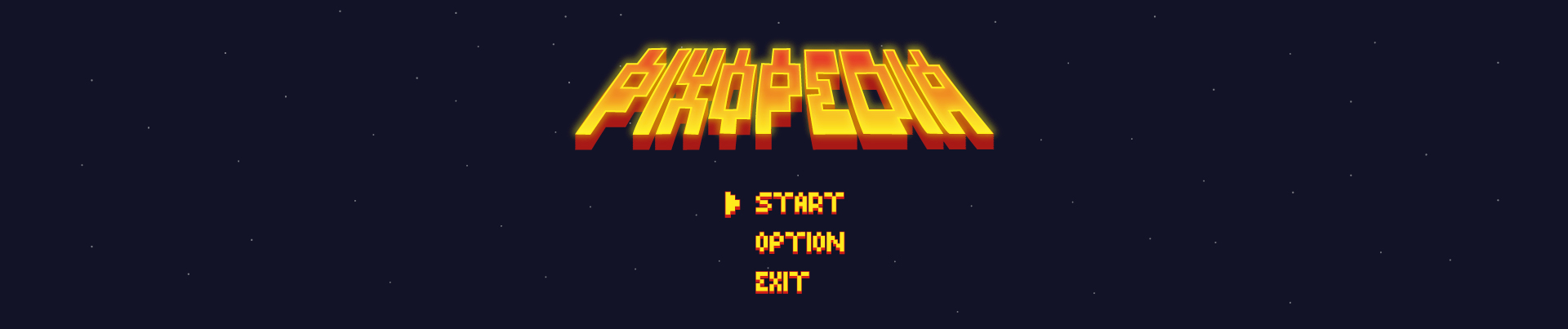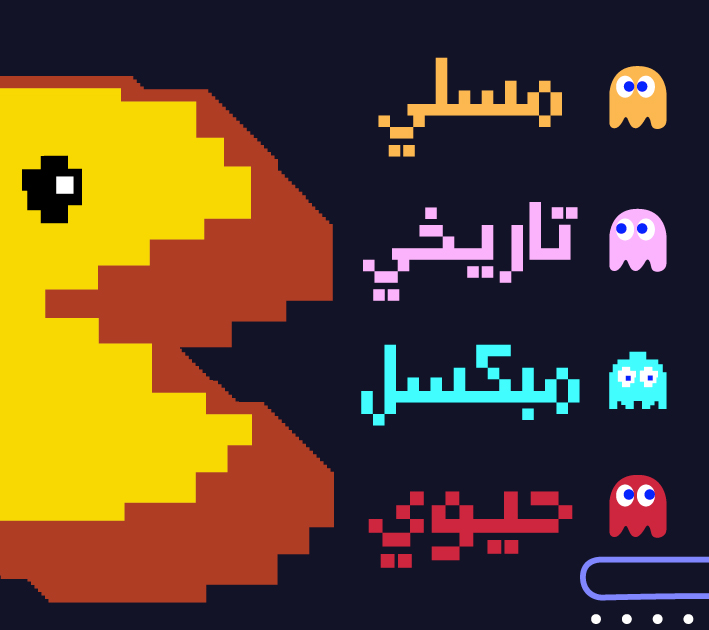
About Pixopedia Font
Introduction:
Pixopedia is a new, clean, and sharp pixel font with lowercase and uppercase glyphs.
Weights and Supported Languages:
It is available in one weight
It supports Arabic & English languages
Usage:
Suitable for logo, poster design, t-shirts, headlines, flyers, cd cover albums, quotes, business cards, branding, magazines, social media, advertisements, and product designs.
Designing & Developing:
TSfonts Type Foundry
Tarek Alsawwa